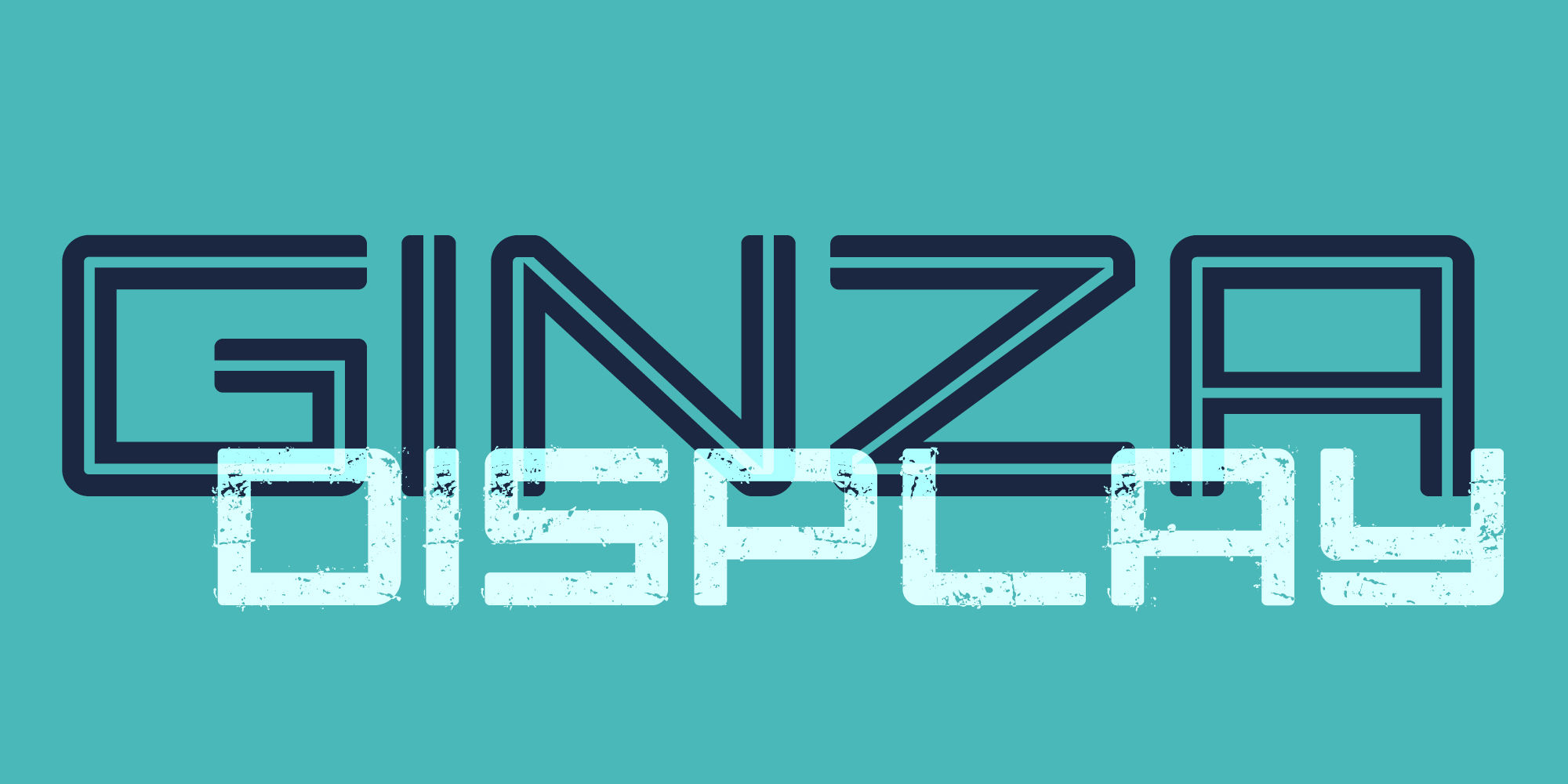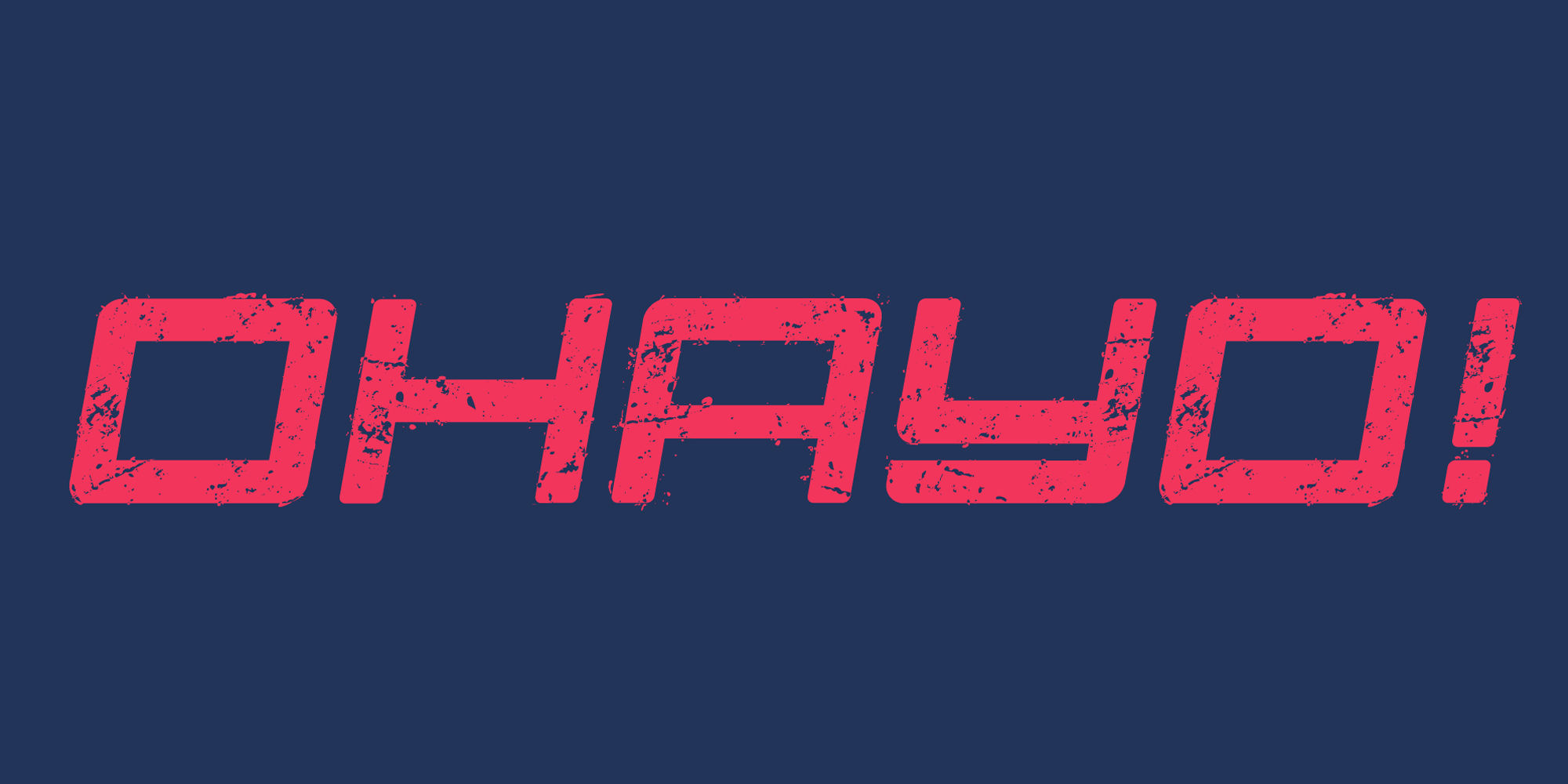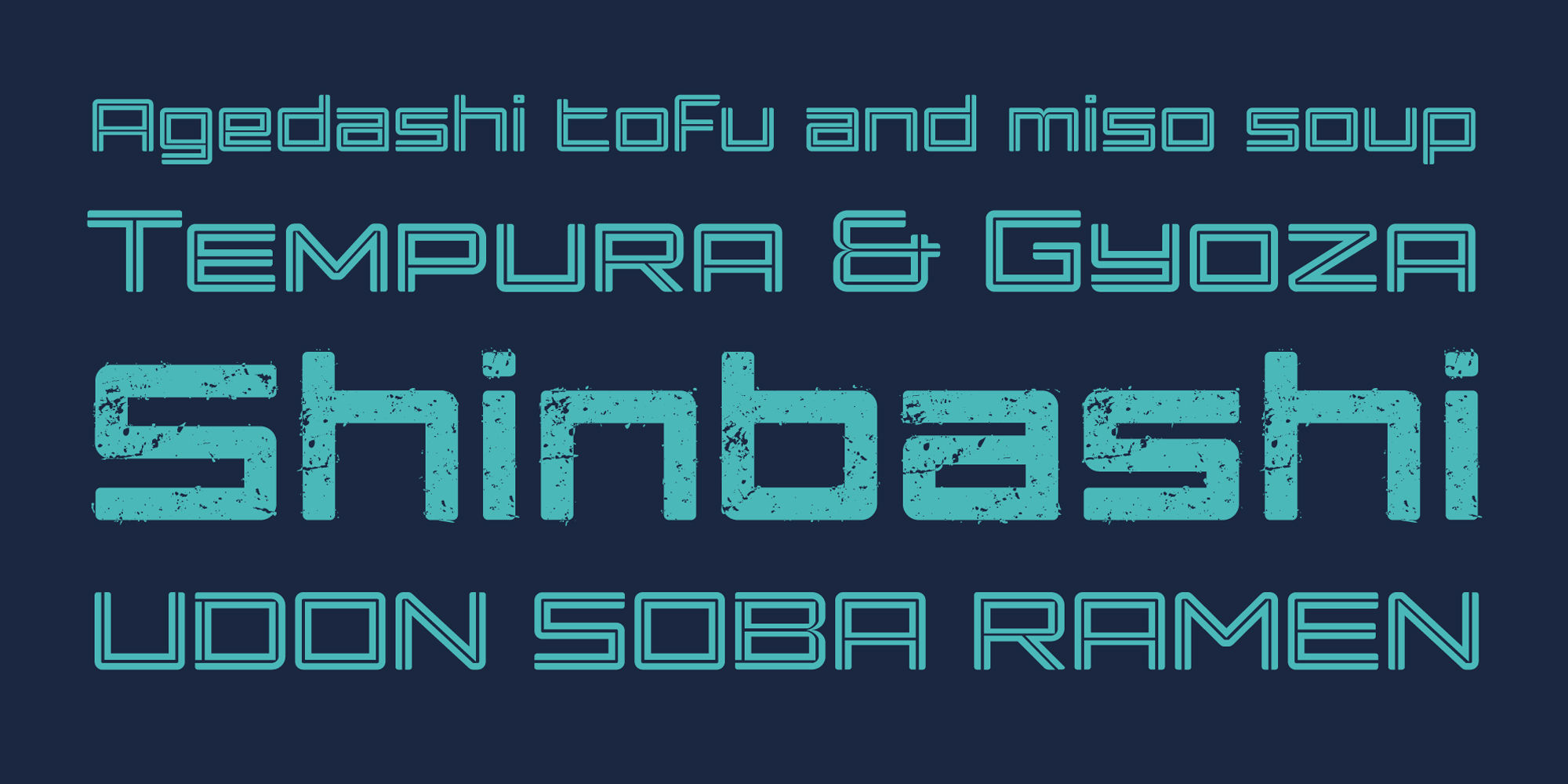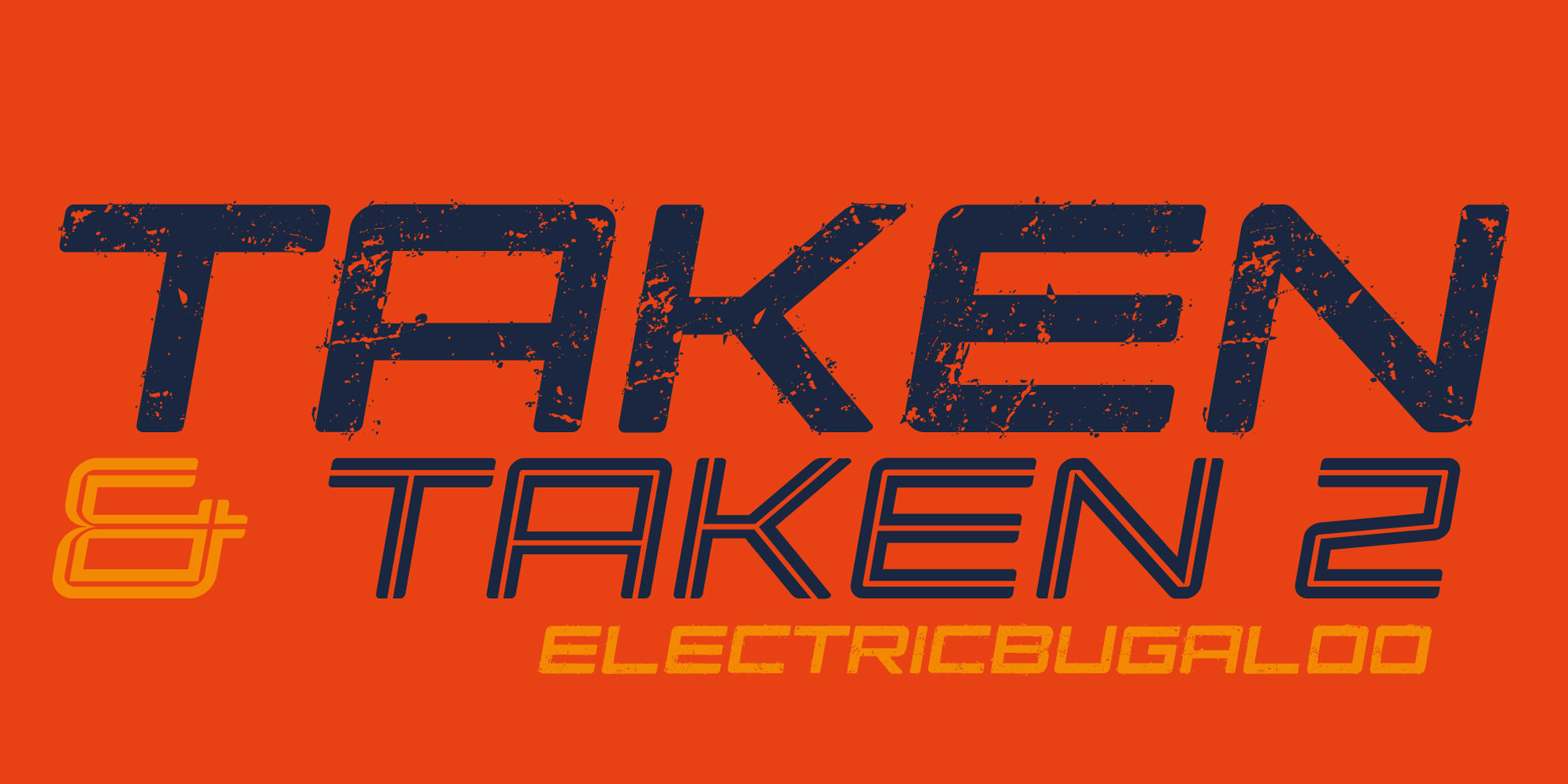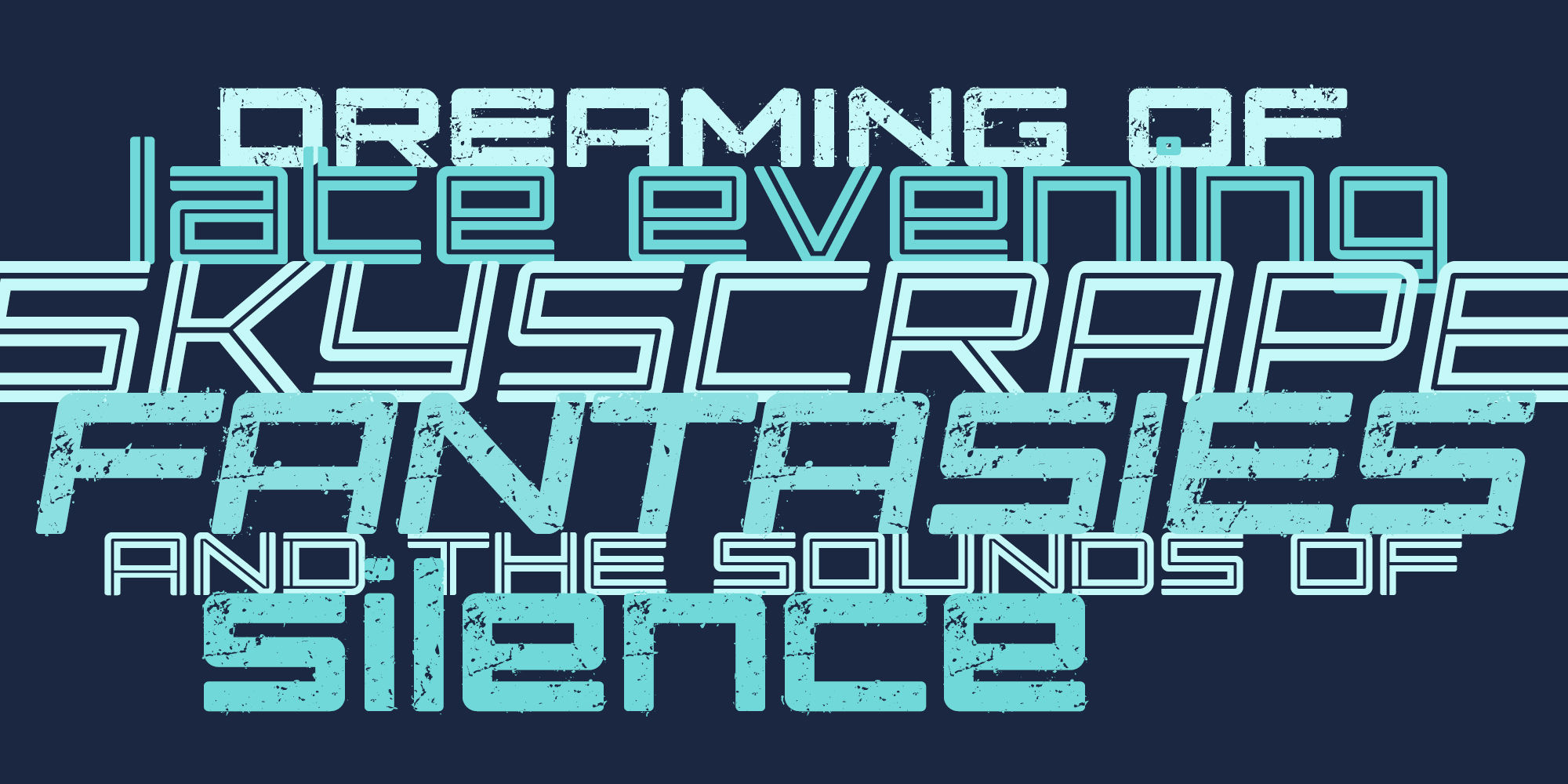
Ginza Display
Sometimes you get an idea stuck in your head and the only way to get rid of that demon is to put something down on paper. A year later the doodles became a skeleton, and then the skeleton had a body, then the body had a name, then the name got a personality.
What was left was a clean set of ten fonts that encompass a very simple skeleton with a lot of visual appeal. During the process, I saw ways to expand the typeface's display capabilities by producing inline styles as well as a down-and-dirty rough set.
Each font has a full set of glyphs that include Central European and Small Cap characters.